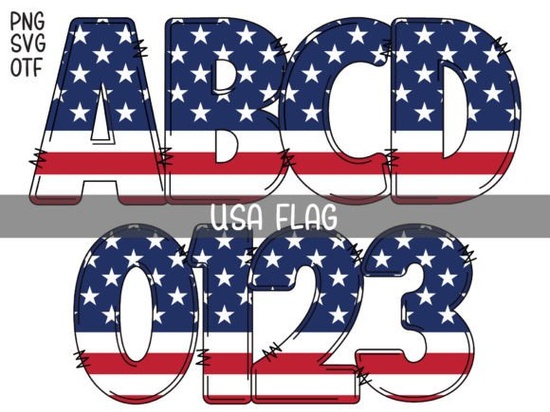
If you're looking for a friendly, eye-catching patriotic font that works well across craft projects and small business designs, the Love Usa Font is a solid choice. It’s not overly formal or stiff instead, it balances playful energy with clear American pride, making it especially useful for Independence Day crafts, seasonal shop listings, or custom merchandise like mugs and t-shirts. Unlike many patriotic fonts that lean heavily into stars-and-stripes clichés, this one uses color-filled characters and relaxed letterforms to feel approachable and modern.
What makes Love Usa Font different from other patriotic fonts?
Most patriotic fonts fall into two camps: bold, blocky display fonts meant for banners and signs or delicate script styles better suited for invitations. Love Usa Font sits comfortably in the middle. Each letter has subtle shading, soft outlines, and gentle variations in stroke weight that give it dimension without needing extra design layers. The uppercase “U” and “S” include small star accents, and the “A” features a tiny flag motif but these details are understated enough to avoid feeling kitschy.
It’s also designed with practical use in mind. The full character set includes standard Latin letters, numbers, and common punctuation, so you won’t hit roadblocks when typing full phrases or product descriptions. And because it’s a color font (OpenType-SVG), the colors render correctly in compatible software like Adobe Illustrator, Affinity Designer, and Cricut Design Space no manual recoloring needed.
Where does it work best?
This font shines where personality and clarity matter more than strict formality. Think:
- Print-on-demand products especially mugs, tote bags, and enamel pins where color and legibility need to hold up at small sizes
- Digital stickers and printable party kits for July 4th or Veteran’s Day events
- Small-batch greeting cards or invitation suites for community celebrations
- Shop banners or social media graphics for craft businesses with a local, handmade vibe
It’s less ideal for long paragraphs or formal documents like official event programs or legal disclaimers since color fonts aren’t universally supported in all PDF viewers or email clients. But for short headlines, labels, and decorative text? It delivers consistency and charm.
How does it compare to similar options?
If you’ve used fonts like Patriotic Hero Font, you’ll notice Love Usa Font feels lighter and more conversational. Love Usa Font doesn’t try to mimic vintage signage or military stencils it’s built for today’s makers who want warmth over rigidity.
That said, pairing it with something like Patriotic Hero Font can add nice contrast: use Love Usa Font for your main headline and Patriotic Hero Font for supporting text or borders. Both live in the same colorful fonts category, so they share a cohesive visual language without matching exactly.
- ✅ Pair it with simple, clean sans-serif fonts (like Montserrat or Nunito) for body text to keep focus on the playful headline
- ✅ Try layering it over subtle textures like watercolor washes or linen backgrounds to soften contrast without losing impact
If you're building a small collection of go-to fonts for seasonal or community-focused projects, Love Usa Font fits naturally alongside other cheerful, accessible options not as a one-off novelty, but as a reliable tool you’ll reach for again and again.